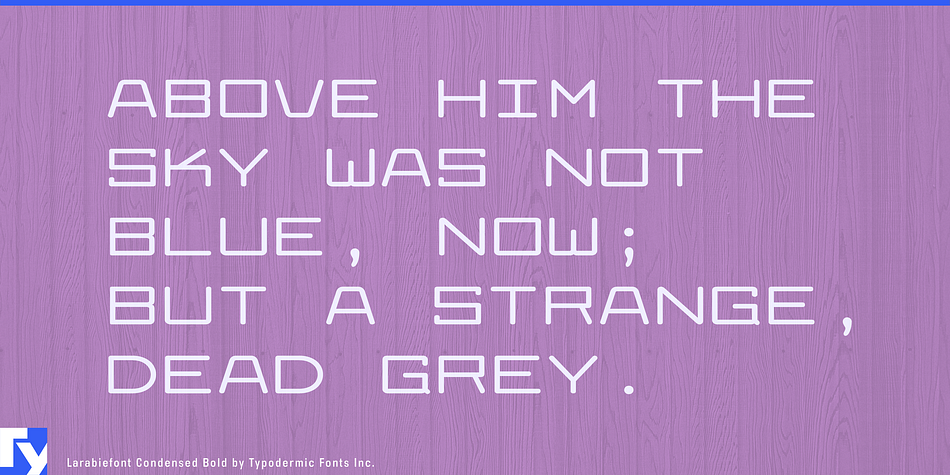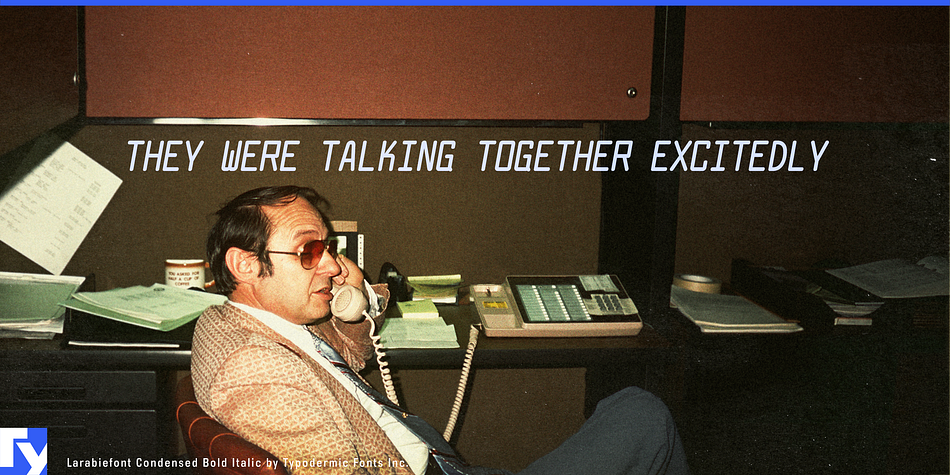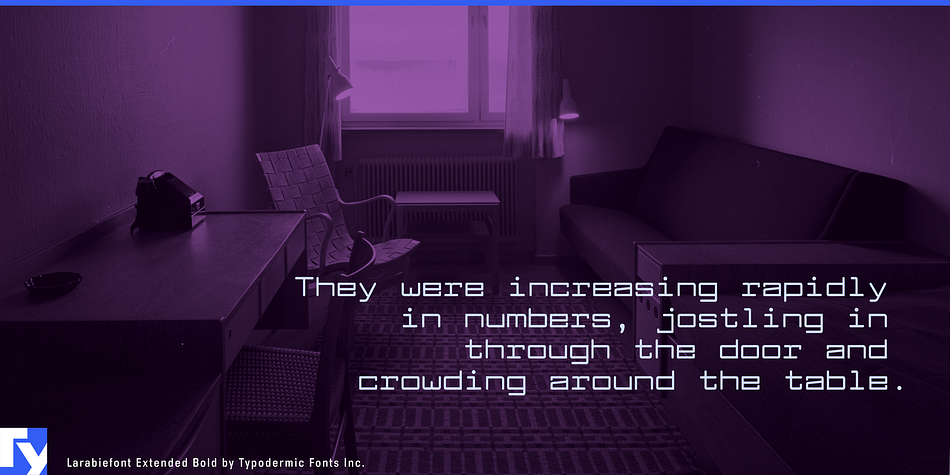
Larabiefont is a sans serif and typewriter font family. This typeface has twenty styles and was published by Typodermic Fonts Inc.
Larabiefont was inspired by an early 1970’s manual typewriter. This monospaced font features even stem widths and well defined shapes with rounded corners.